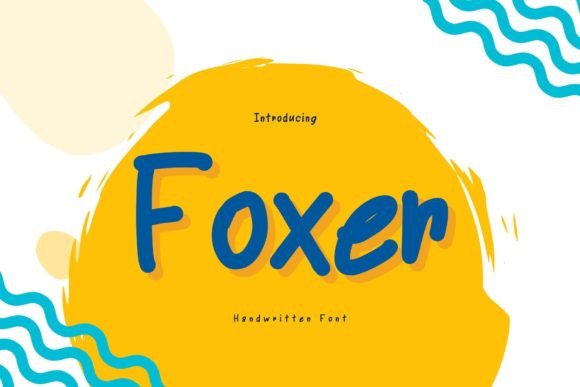
Journey into the Enchanting World of Foxer Font
Unleash your creativity with Foxer Font, the captivating script font that exudes playfulness and authenticity. Its charming handwritten style dances across your screen, leaving a trail of elegance and charm. As a creation of Brown Cupple Fonts, Foxer embodies the essence of delightful expression, inviting you to embark on a creative adventure.
Foxer Font: The Perfect Canvas for Your Artistic Vision
With Foxer Font, your projects will blossom into masterpieces. Picture your blog posts adorned with its whimsical touch, your logos radiating a unique personality, your branding soaring to new heights of distinction. Foxer Font lends its magic to ads, invitations, and greeting cards, transforming them into cherished keepsakes. Unleash your inner artist and let Foxer Font ignite your imagination.
Embrace the Endless Possibilities of Foxer Font
Foxer Font is your versatile companion in the realm of creativity. Its enchanting aura adds a touch of allure to planners, photo albums, and decorations, enchanting every aspect of your life with its graceful presence. Whether you're crafting digital designs or tangible creations, Foxer Font empowers you to weave enchanting tales through the art of typography.
Immerse Yourself in the Beauty of Foxer Font
Foxer Font is more than just a font; it's an experience. Its playful curves and authentic charm evoke a sense of nostalgia, reminding you of handwritten letters exchanged between loved ones. With Foxer Font, you can express your emotions with a depth and sincerity that resonates with your audience. Each letter dances across the page, carrying a message of joy, warmth, and inspiration.